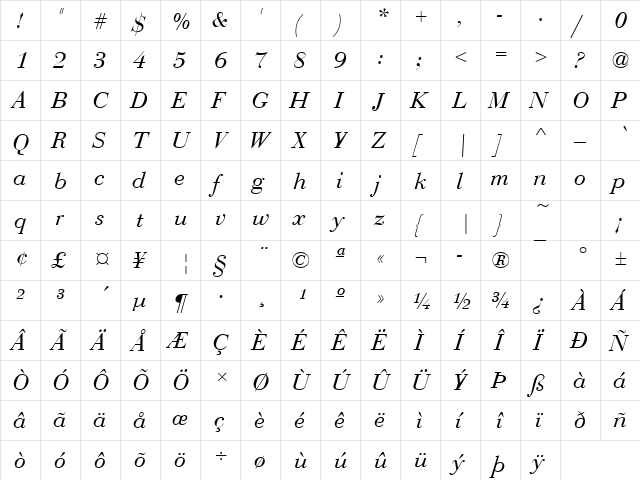
Bedini Italic
| Foundry | MGI Software |
Design Context for Bedini Typeface
Bedini takes a measured approach to typography — its balanced proportions and neutral character make it a reliable workhorse for both digital and print work. The slanted form adds forward momentum and visual energy.